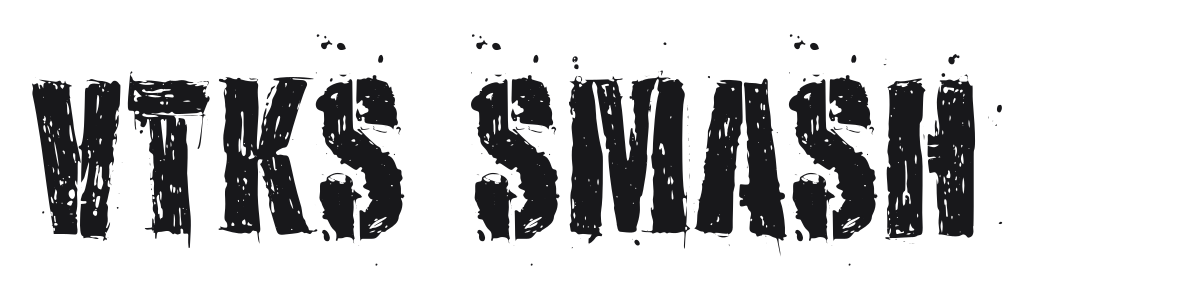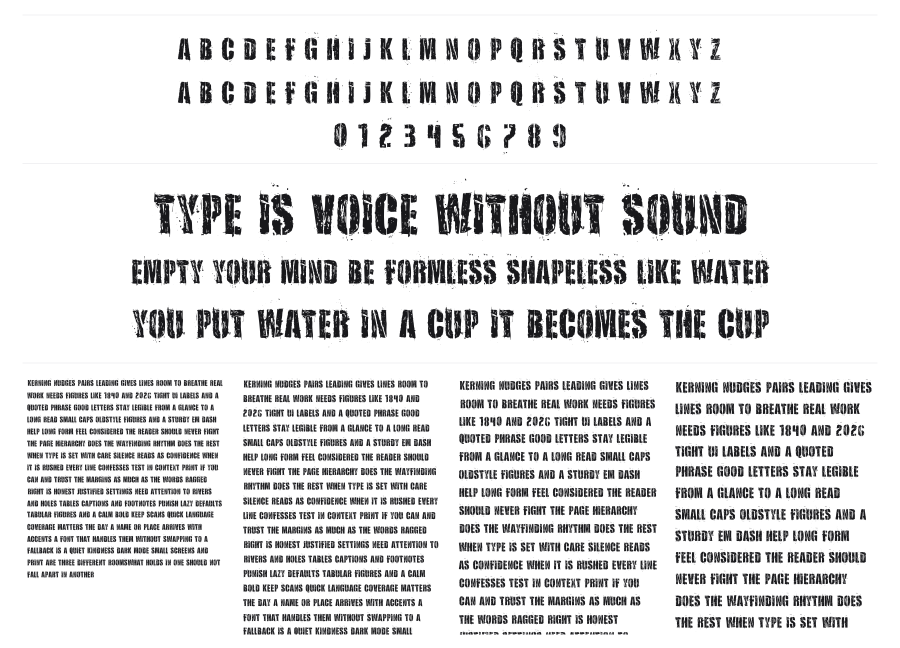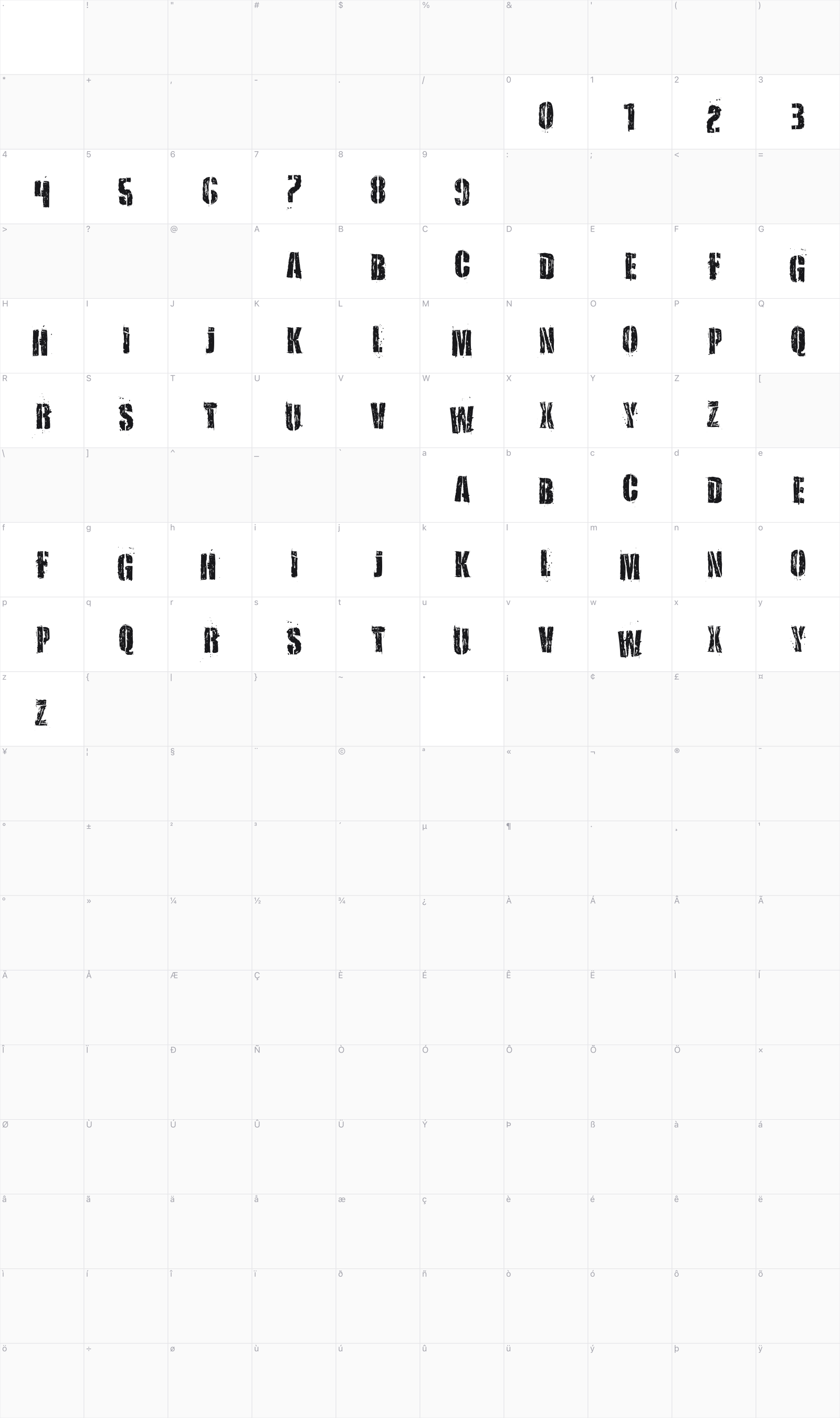
Vtks Smash
Vtks Smash is a heavy condensed slab-serif buried under layers of ink splatter, erosion, and surface damage. The underlying structure reads like a military stencil that has been beaten, smashed, and soaked. It carries serious visual weight and works best when the design calls for raw aggression at large sizes.